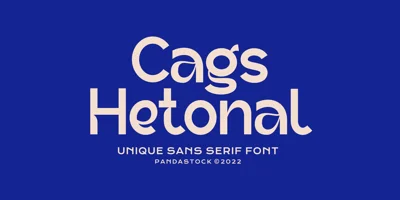
Cags Hetonal Font
Cags Hetonal Font delivers an innovative typeface that embodies experimental typography and avant-garde sophistication with distinctive character. However, for commercial use, you must purchase this font. You can download it for free for testing purposes only.
Cags Hetonal Font excels in creative design applications including experimental design studios, contemporary art galleries, innovative tech startups, avant-garde fashion brands, progressive cultural institutions, modern architectural firms, cutting-edge advertising agencies, artistic publication layouts, creative workshop materials, and boundary-pushing lifestyle campaigns. This distinctive typeface brings typographic innovation to forward-thinking design projects.
What makes Cags Hetonal Font truly exciting is its unique approach to letterform construction with unconventional character designs that challenge traditional typography while maintaining functional readability through experimental aesthetics. The font features distinctively crafted letters with innovative proportions and creative elements that convey originality, artistic vision, and the bold confidence of design pioneers. Its experimental personality and innovative spirit make it ideal for brands embracing creative risk-taking, artistic expression, and audiences who appreciate unique design solutions, typographic experimentation, and the transformative power of creative innovation.
The Cags Hetonal Font family typically includes Regular weight with potential stylistic alternates and experimental variations that enhance its innovative character. These creative options provide designers with complete avant-garde styling while maintaining the font's distinctive experimental elegance and progressive presentation across various creative applications and artistic contexts.
Whether you're developing innovative branding, creating experimental campaigns, or designing cutting-edge marketing materials, Cags Hetonal Font provides the creative authority and typographic sophistication that experimental projects require. Its exceptional uniqueness and innovative appeal make it invaluable for designers working with creative agencies, artistic organizations, and innovation-driven brands requiring typography that celebrates typographic experimentation, creative courage, and the pioneering spirit that pushes design boundaries to create new visual languages and inspiring communication solutions that challenge conventional thinking.